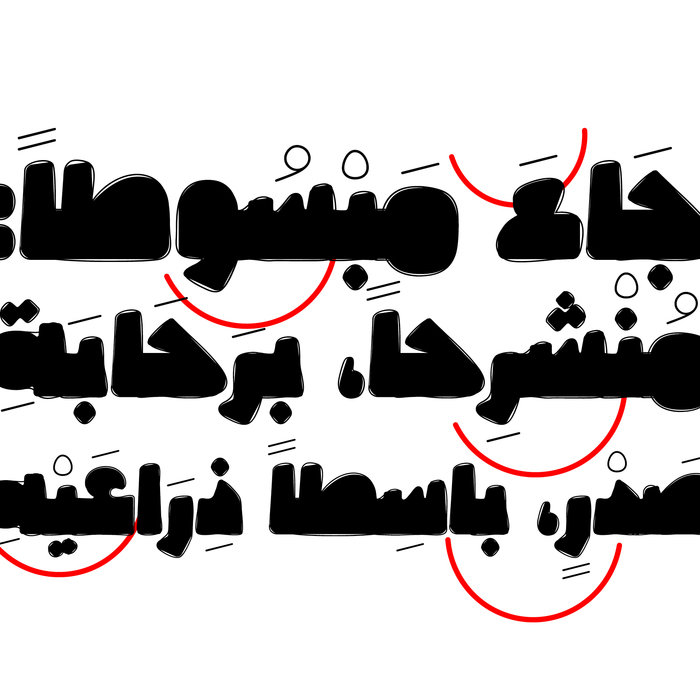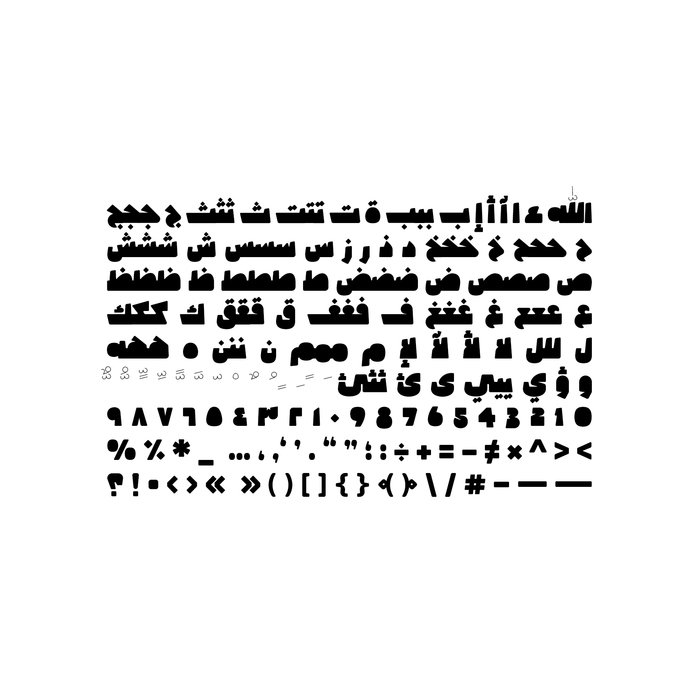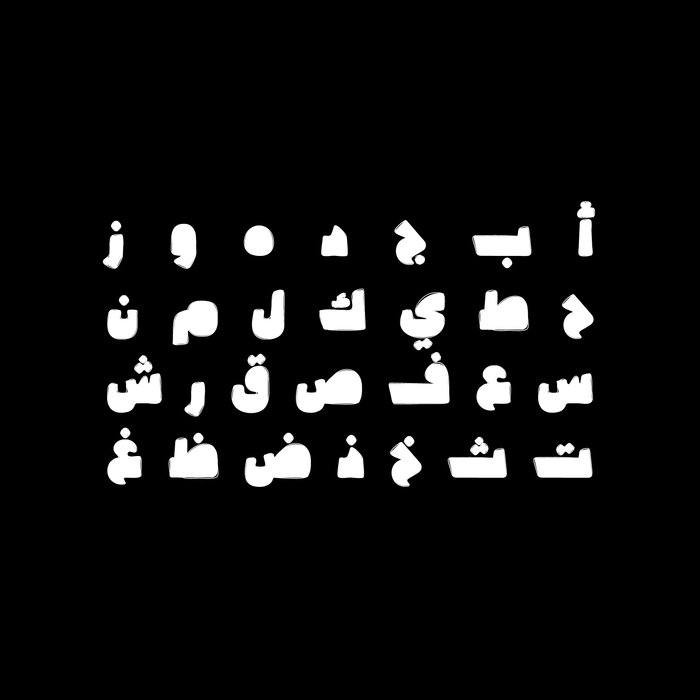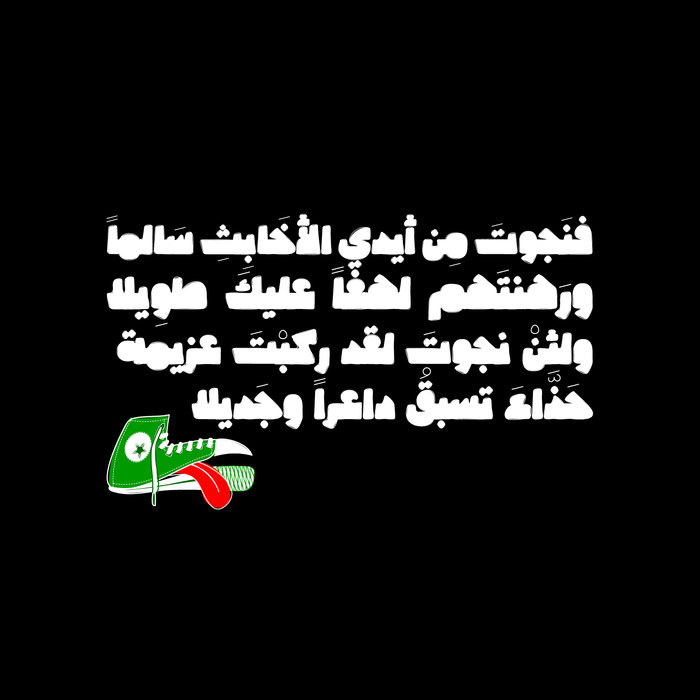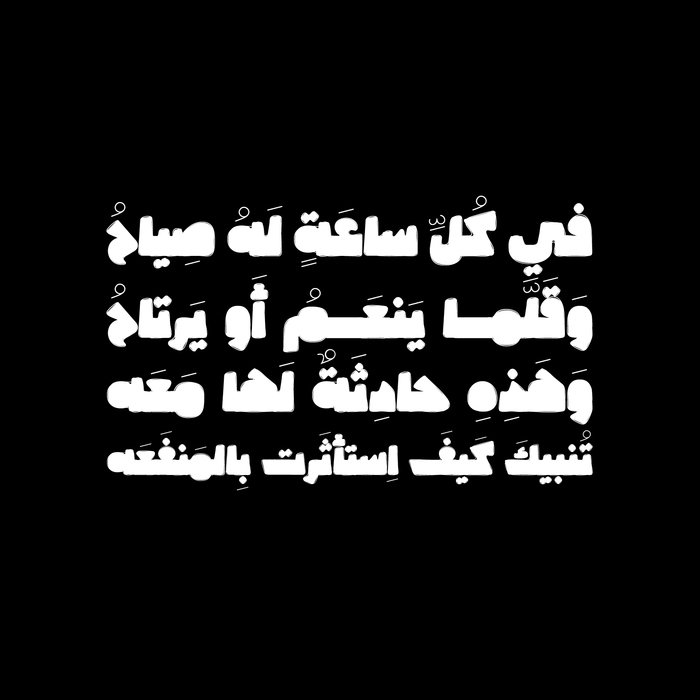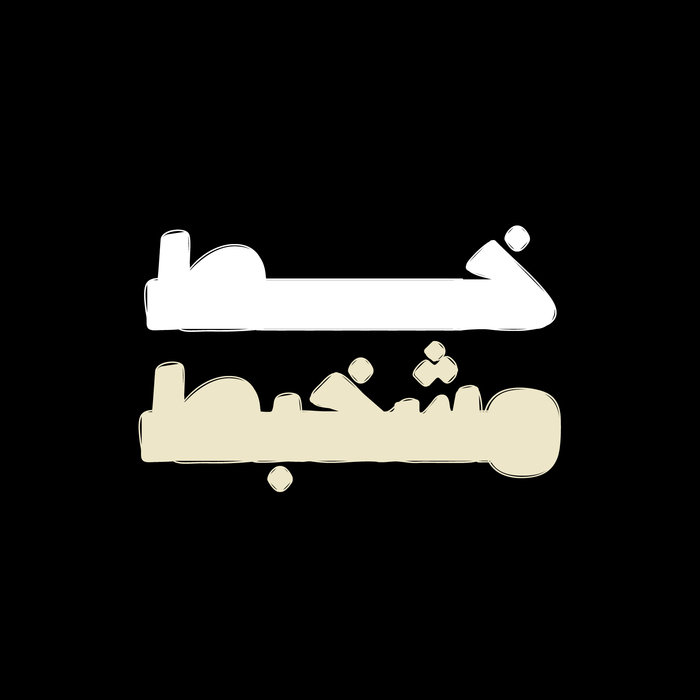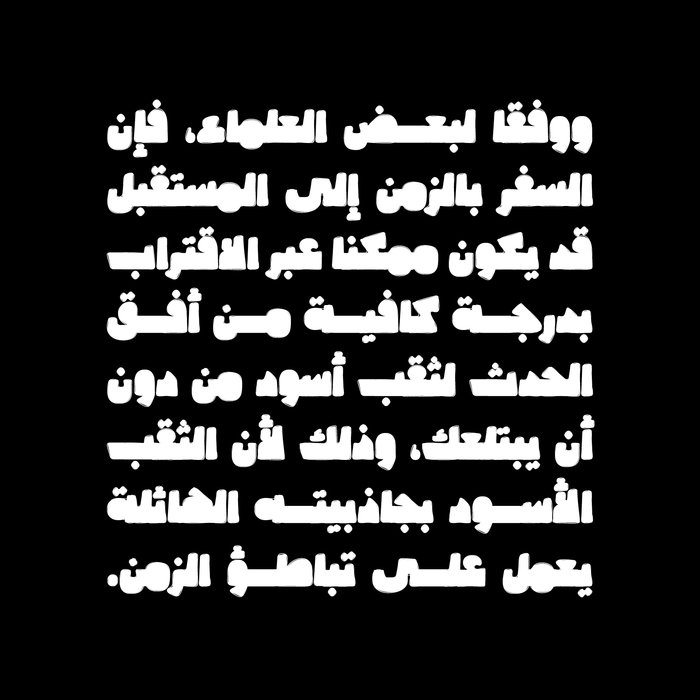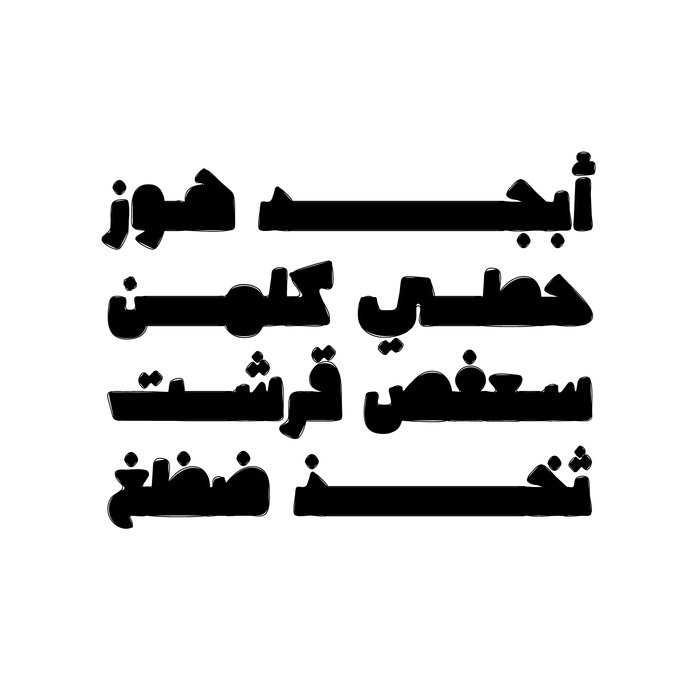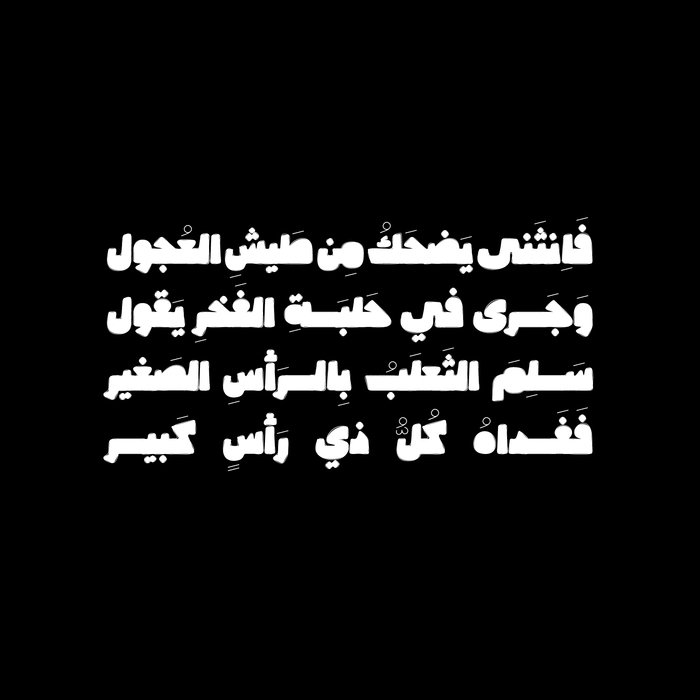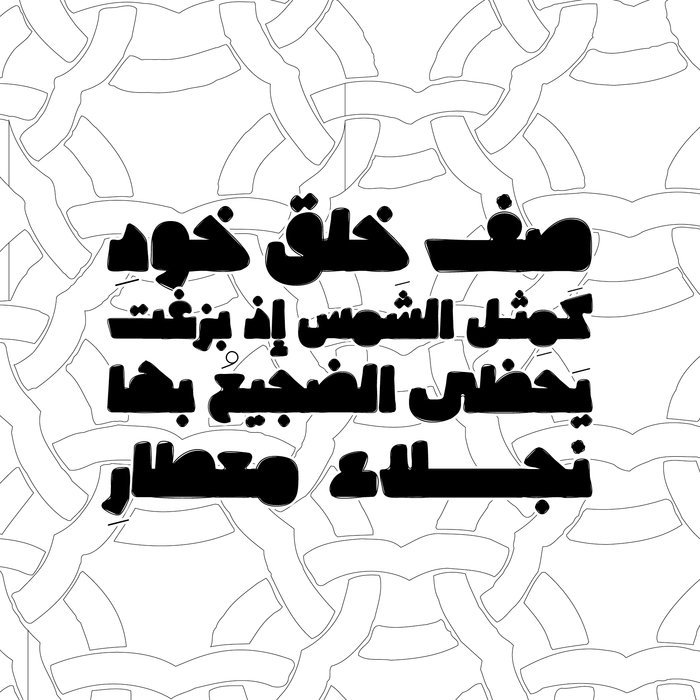
Cruuki - Arabic Font
Cruuki (the Arabic for 'Sketch') is an Arabic display font that features heavy letterform design with scribbled effect. The font is suitable for contemporary design projects including web, print and mobile applications. Cruuki font comes in two styles (Black and Scribbled).